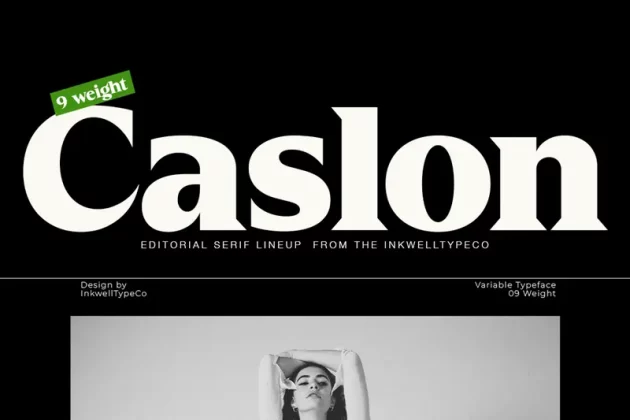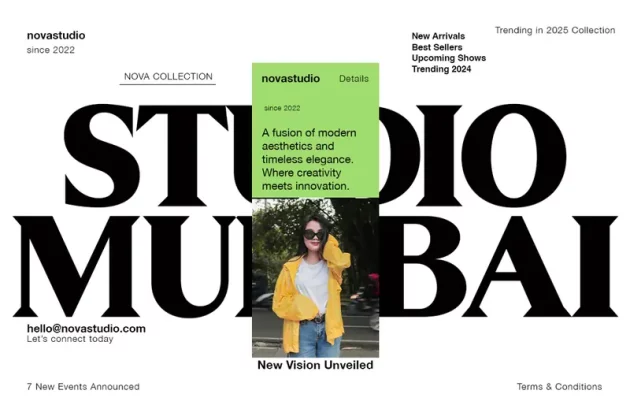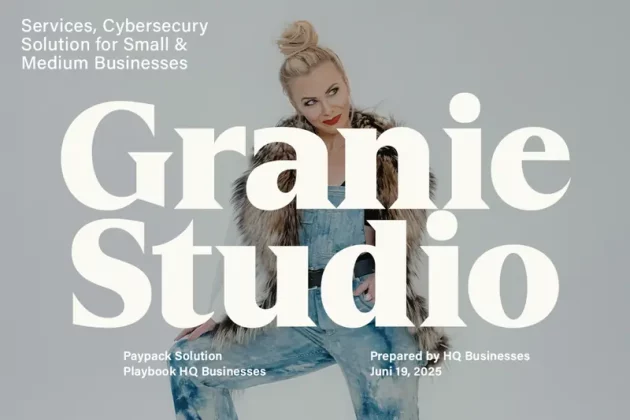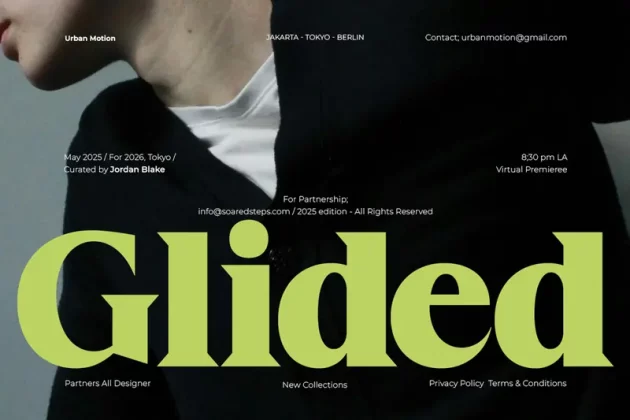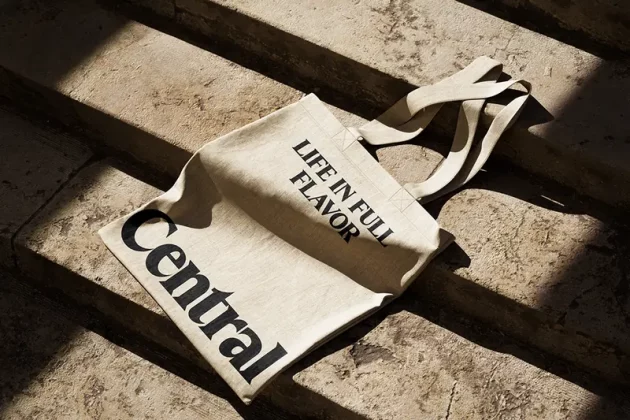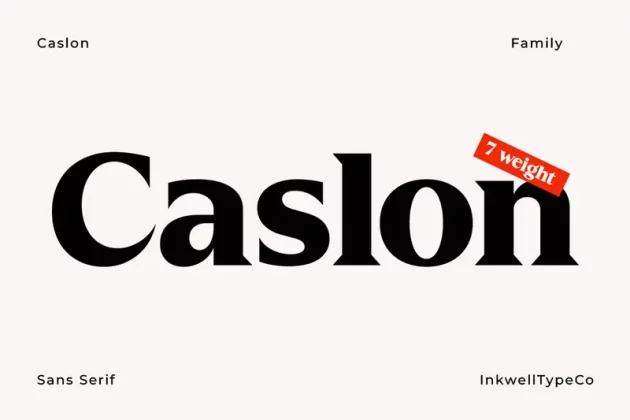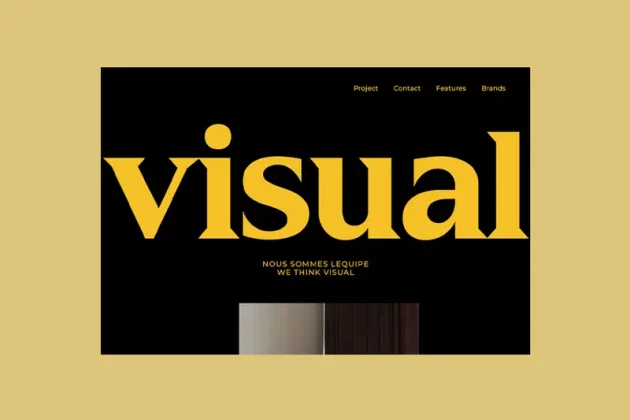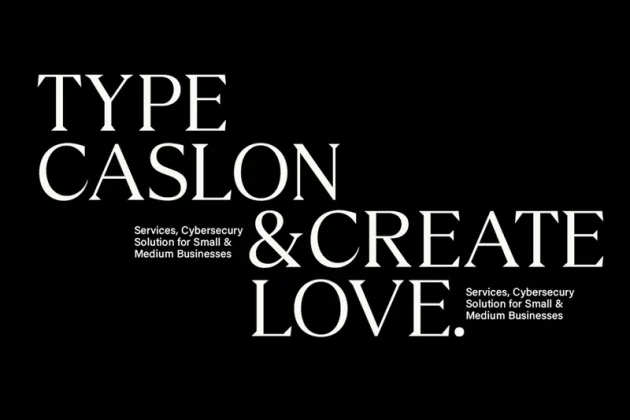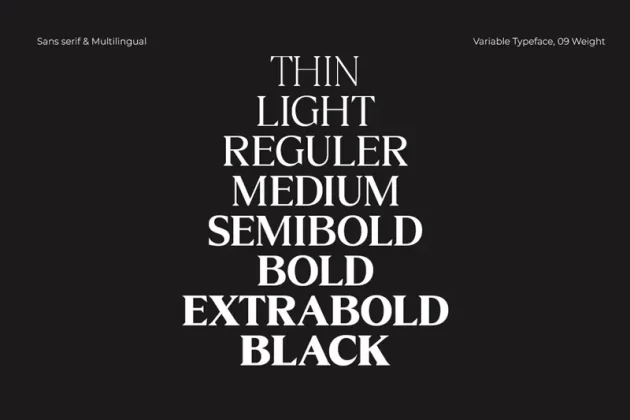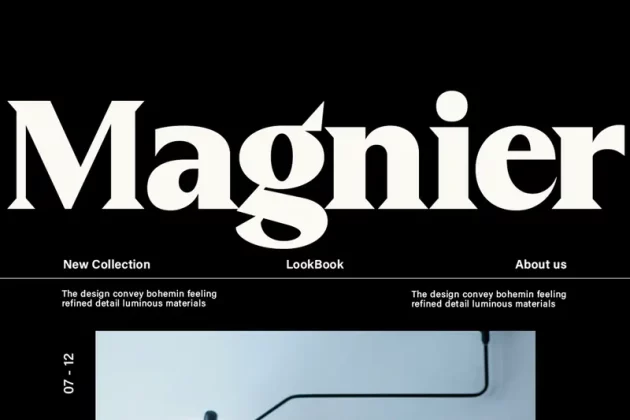
Caslon Family 18 style Font
Caslon is a refined and versatile serif typeface designed for editorial excellence and impactful branding. With 9 weights and 18 styles, it offers a perfect balance between tradition and modernity, making it an ideal choice for magazines, newspapers, branding projects, and sophisticated UI/UX designs.
This typeface embraces high contrast, strong serifs, and elegant proportions, ensuring both readability and personality in headlines and body text. Whether used in digital or print, Caslon enhances the visual presence of any project.